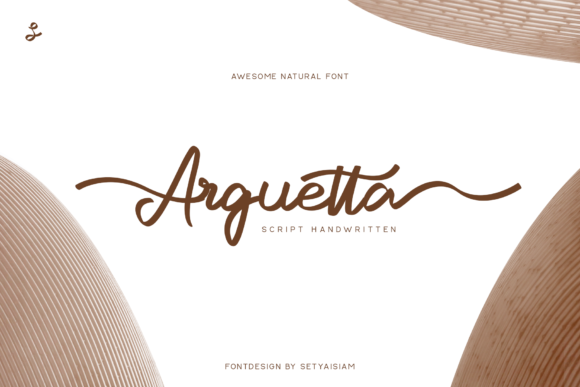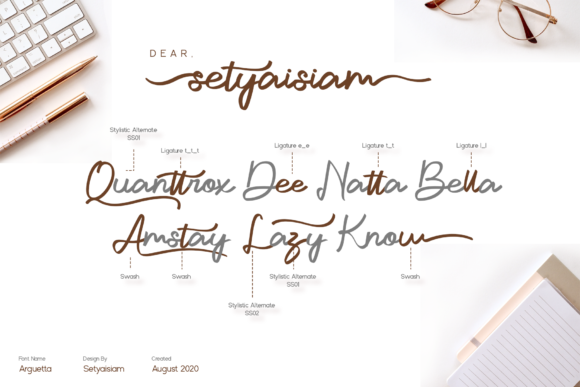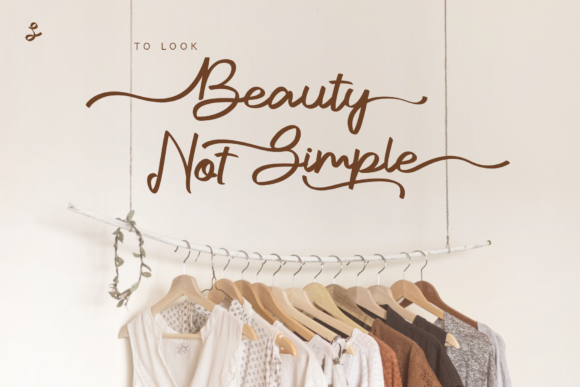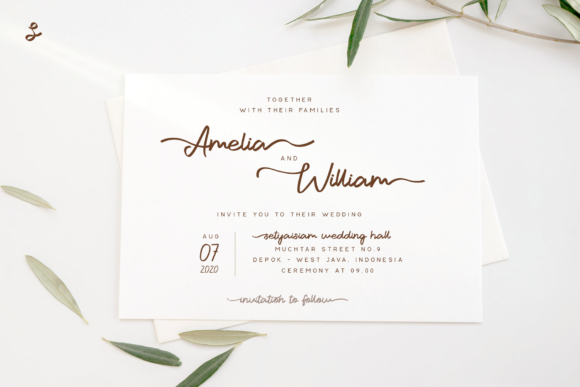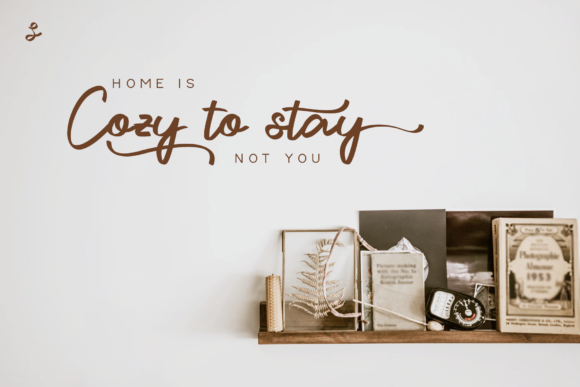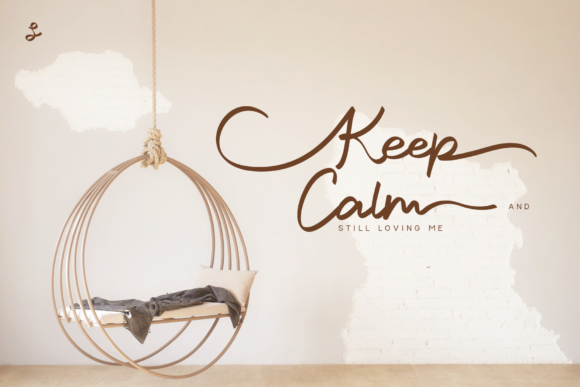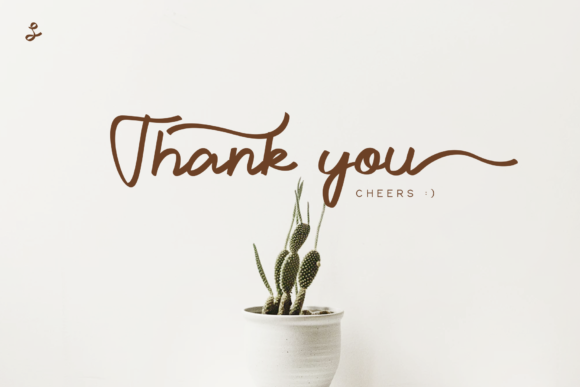
Arguetta Font
About Arguetta Font
Introducing Arguetta, an elegant and flowing handwritten font that embodies sophistication and grace. With its PUA encoding, accessing all the glyphs and swashes is a breeze, allowing you to unlock a world of design possibilities. Arguetta features a varying baseline, smooth lines, gorgeous glyphs, and stunning alternates, showcasing its artistry and finesse. It strikes the perfect balance between classic calligraphic influences and a contemporary freshness, making it a timeless choice for all your design projects.
The flowing and elegant strokes of Arguetta create an air of refinement and allure. Each letter is meticulously crafted, showcasing the font’s versatility and elegance. Whether you’re designing elegant wedding invitations or conveying heartfelt sentiments in a greeting card, Arguetta elevates your projects to the highest levels of beauty and authenticity.
The font’s varying baseline adds a touch of dynamism, while the smooth lines and stunning alternates ensure that Arguetta stands out in any design setting. From luxurious branding to delicate stationery, and from social media graphics to editorial layouts, Arguetta’s timeless elegance enhances your creations with its captivating presence.
Imagine using Arguetta to create captivating wedding invitations. Its elegant script becomes a work of art, setting the tone for a celebration filled with sophistication and romance.
For branding and logos that require a touch of refined elegance, Arguetta becomes a symbol of sophistication and grace. Its unique style allows you to create a brand identity that resonates with authenticity and charm.
In the realm of social media and quotes, Arguetta adds a touch of artistry and allure to your posts and graphics. It captures attention with its beauty, inviting your audience to engage with your message on a deeper level.
Greeting cards and heartfelt quotes become poetic expressions of emotion with Arguetta. The font’s flowing script conveys sentiments with finesse, making your messages truly captivating.
In conclusion, Arguetta is more than just a font; it’s an embodiment of elegance and grace. With its flowing and elegant style, Arguetta becomes an invaluable asset for all your design projects. Embrace the captivating allure of Arguetta and watch as your creations come alive with sophistication and charm. Let your imagination flourish in the elegant and flowing embrace of Arguetta, the handwritten font that defines timeless allure and creative brilliance.